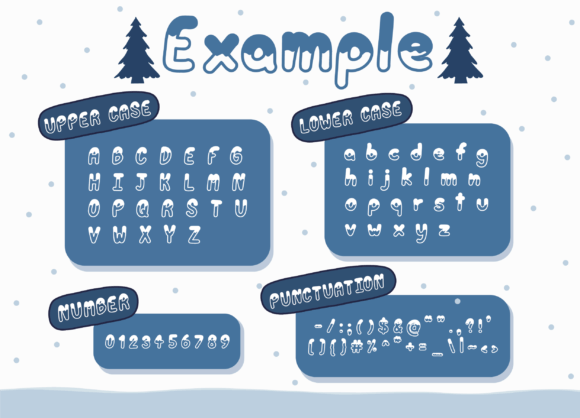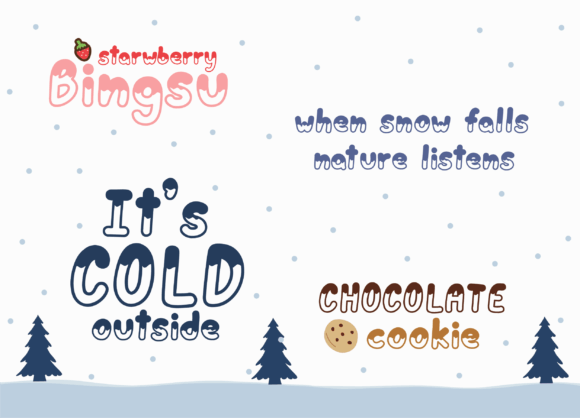
Deck the Halls with the Magical Christmas Font
Are you looking for a festive font to add a touch of holiday cheer to your designs? Look no further than the “Christmas” display outline doodle font! This playful winter wonderland of letters is sure to bring joy and whimsy to your projects. In this article, we’ll dive into the magic of this enchanting font and explore its many uses for designers and crafters.
A Whimsical Journey Through a Snowy Holiday Scene
The “Christmas” display outline doodle font is a true marvel of festive design. Each character is carefully crafted to resemble a doodle, with snowflakes gently dusting the letters. The result is a font that looks like it was drawn on a snowy day, surrounded by the magic of the holiday season. The outline doodle appearance gives the font a lighthearted and carefree feel, perfect for capturing the spirit of creative celebrations.
Capturing the Essence of Festive Joy
This delightful font is more than just a pretty face – it’s a way to convey the essence of festive joy and imaginative authenticity. The snowy accents and doodle details evoke a sense of childhood wonder, making it perfect for projects related to kids, winter festivities, or anything that twinkles with holiday cheer. Whether you’re designing invitations, decorations, or gift tags, the “Christmas” font is sure to add a touch of enchantment to your creations.
As a designer or crafter, you’re likely always on the lookout for unique and versatile fonts to add to your toolkit. The “Christmas” display outline doodle font is a fantastic addition to any collection. Its playful and imaginative vibe makes it perfect for a wide range of projects, from:
• Holiday invitations and cards
• Winter-themed decorations and signage
• Kids’ party invitations and activities
• Gift tags and wrapping paper
Tips for Using the Christmas Font
To get the most out of this magical font, here are a few tips to keep in mind:
• Pair it with bold colors: The “Christmas” font looks amazing with bright, bold colors like red, green, and blue. Try pairing it with a contrasting color to make your text pop.
• Add some sparkle: The font’s snowy accents and doodle details already give it a festive feel, but you can take it to the next level by adding some sparkle or glitter effects.
• Experiment with sizes: The “Christmas” font looks great in a variety of sizes, from small and delicate to large and bold. Experiment with different sizes to find the perfect fit for your project.
The “Christmas” display outline doodle font is a true holiday treasure. Its playful, imaginative vibe and snowy accents make it perfect for capturing the essence of festive joy and creative celebrations. Whether you’re a designer, crafter, or simply someone who loves the holiday season, this enchanting font is sure to bring a touch of magic to your projects. So why wait? Download the “Christmas” font today and start decking the halls with its whimsical charm!
Get Creative with the Christmas Font
Ready to get creative with the “Christmas” font? Here are some ideas to get you started:
• Create a festive holiday party invitation
• Design a set of snowy-themed gift tags
• Make a winter wonderland-themed decoration for your home or office
• Develop a kids’ activity sheet or coloring book
• Design a holiday-themed social media graphic
Whatever your project, the “Christmas” display outline doodle font is sure to add a touch of holiday cheer and whimsy. So go ahead, get creative, and make some magic with this amazing font!